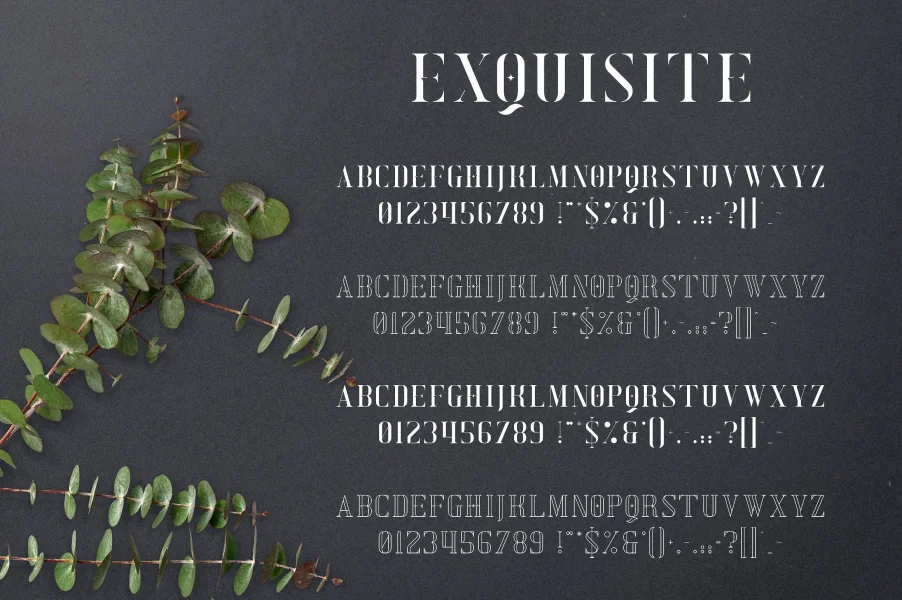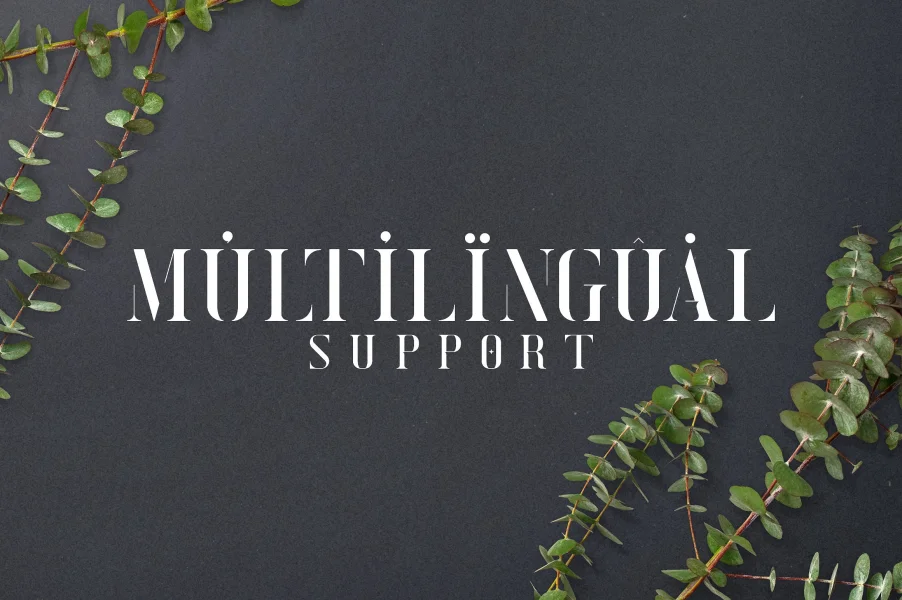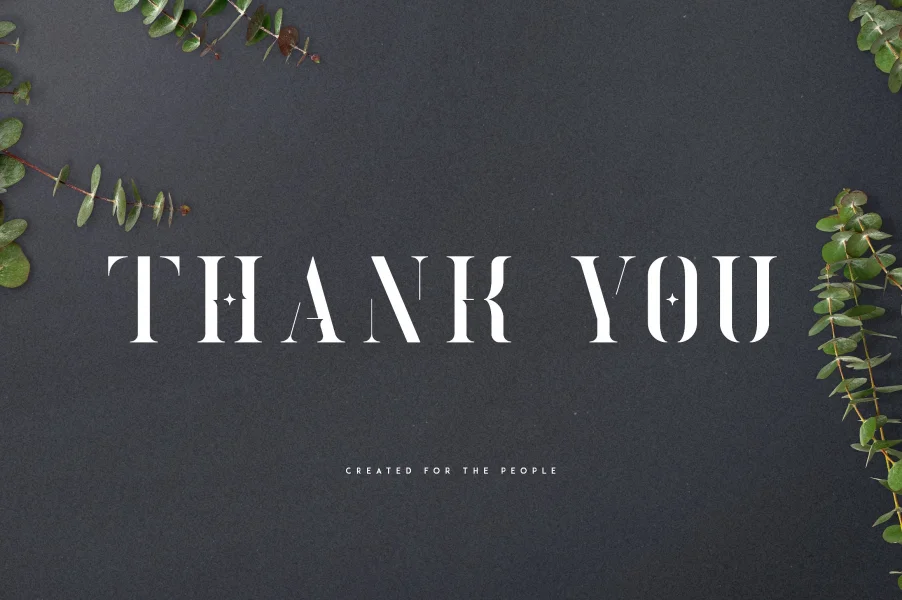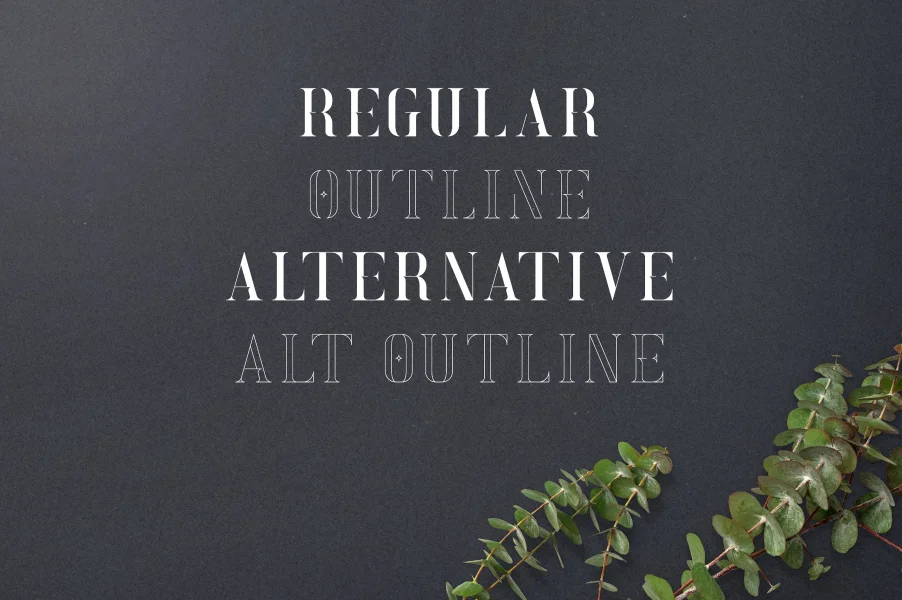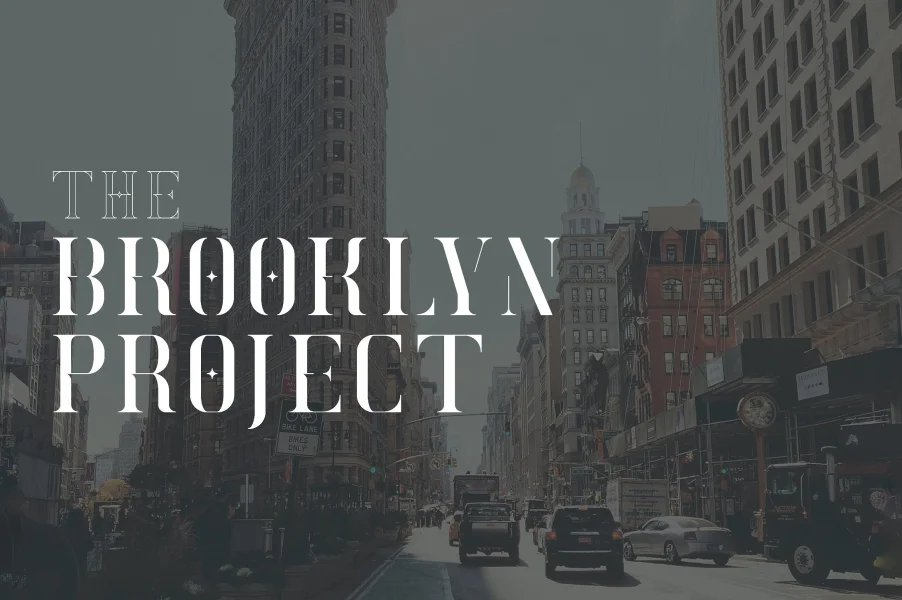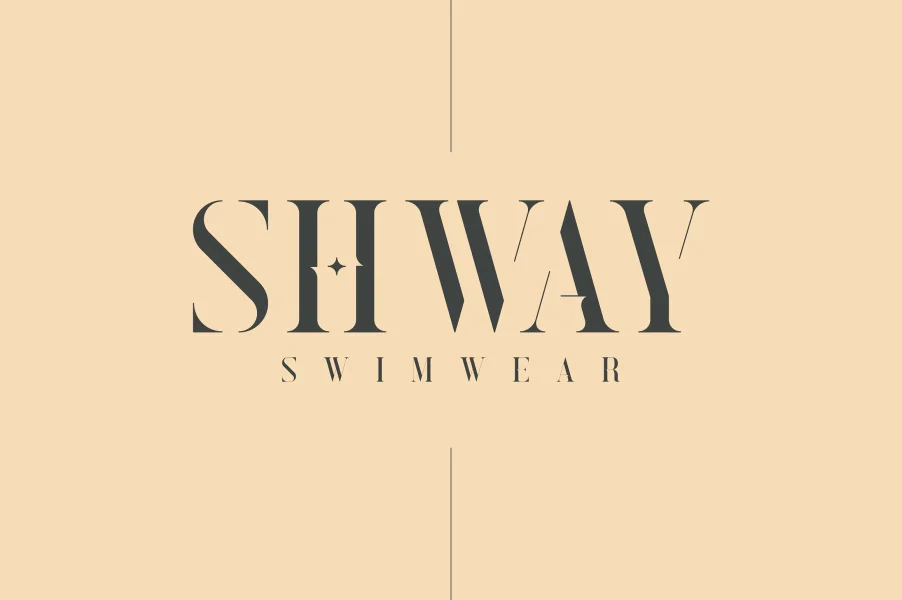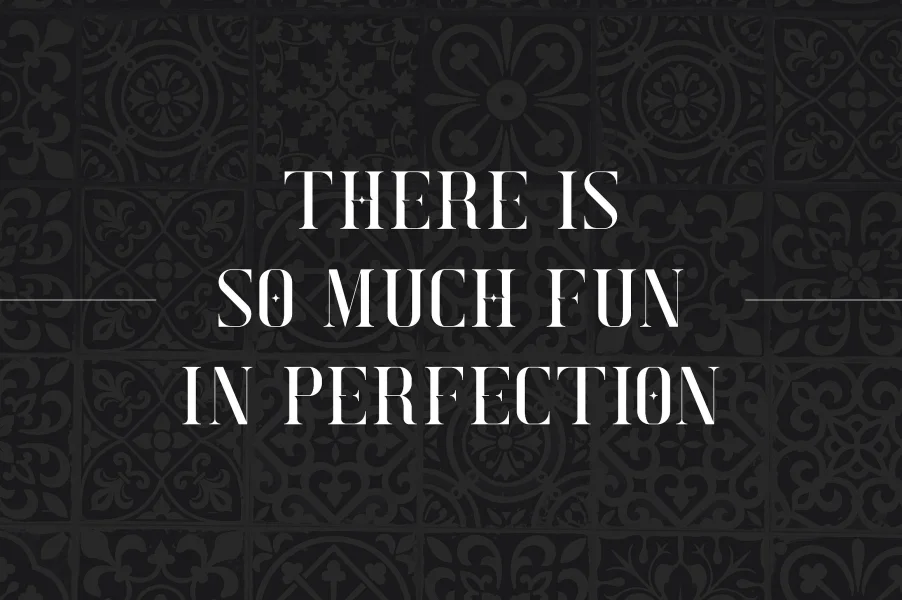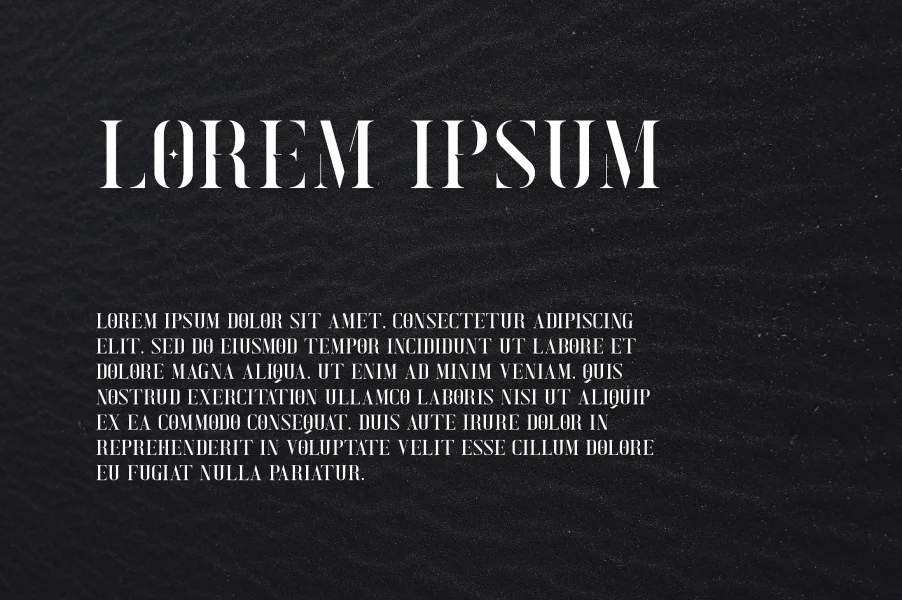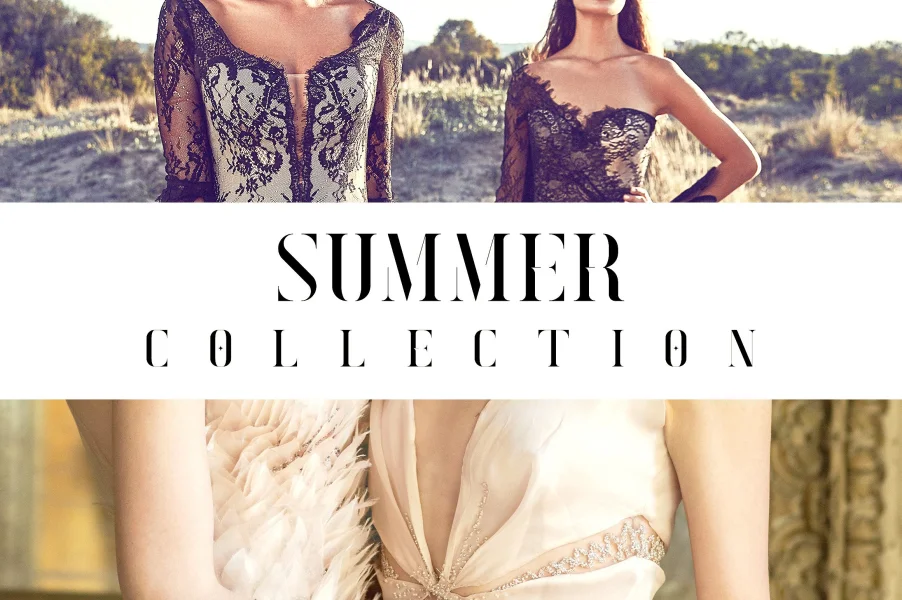
Exquisite is elegant, clean typeface with 4 styles and multilingual support. It's a very versatile font that works great in large and small sizes.
Exquisite is perfect for branding projects, home-ware designs, product packaging, magazine headers - or simply as a stylish text overlay to any background image.
- Uppercase,lowercase, numeral,punctuation & Symbol
- Clean
- Multilingual support
- Regular
- Outline
- Alternative
- Alt Outline